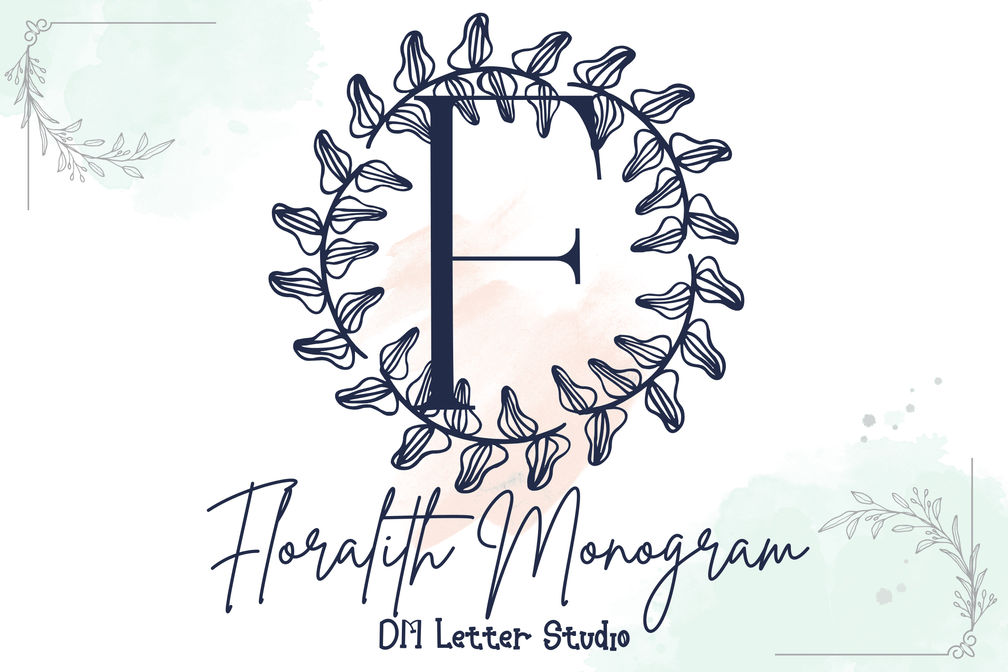
Floralith Monogram
Floralith Monogram – Elegant Nature-Inspired Monogram Font
Floralith Monogram is a refined and artistic monogram font featuring uppercase initials adorned with botanical elements. With soft curves, floral details, and a timeless serif structure, this font brings natural elegance to branding, wedding stationery, personalized gifts, and decorative packaging. Whether you’re designing for romance or refinement, Floralith adds a graceful, leafy touch to your creative work.
• Botanical Accents: Each capital letter includes hand-drawn floral details, blending classic monogram style with nature’s elegance.
• Perfect for Elegant Branding: Ideal for weddings, boutique logos, packaging designs, and personalized items.
• Balanced Design: Combines serif precision with organic flourishes for a versatile and timeless feel.
• Complete Character Set: A–Z uppercase letters, numerals, punctuation, and multilingual support.